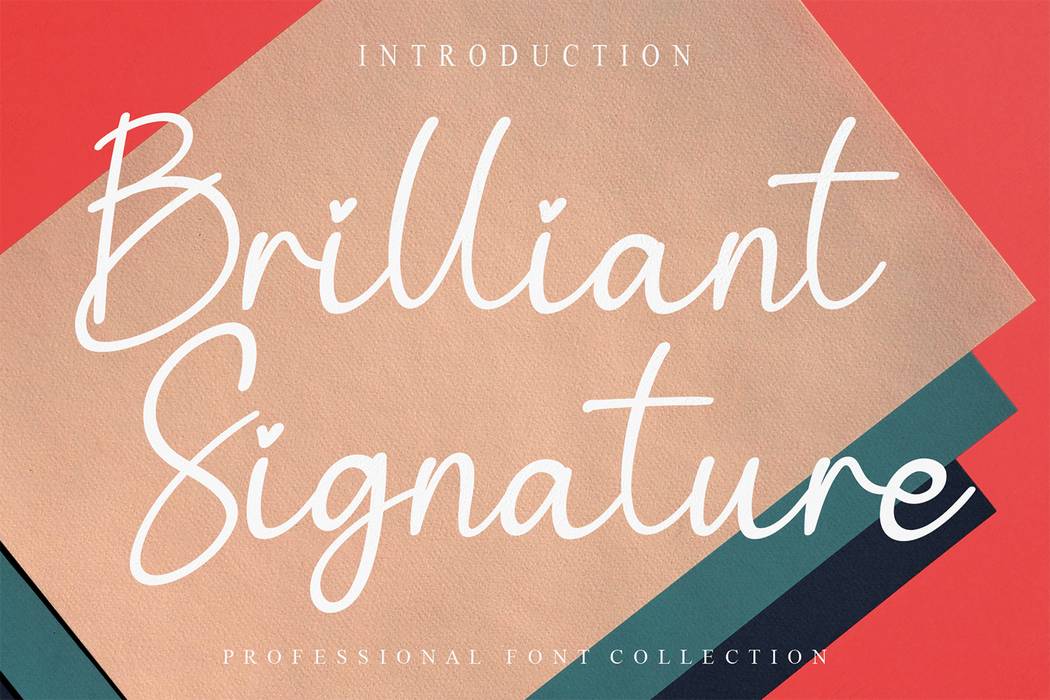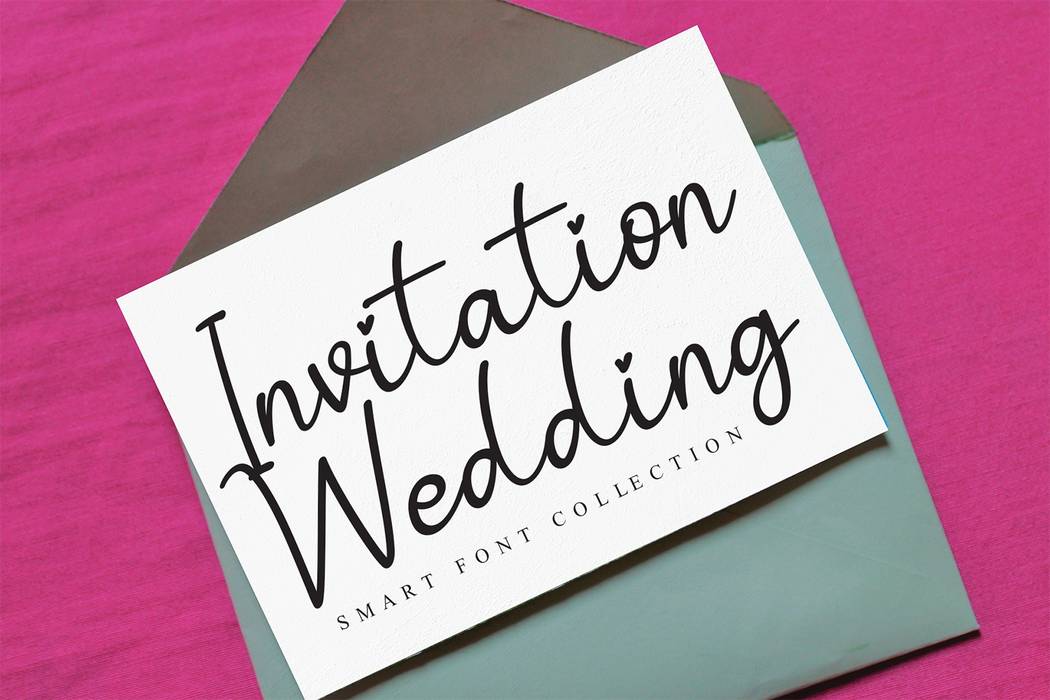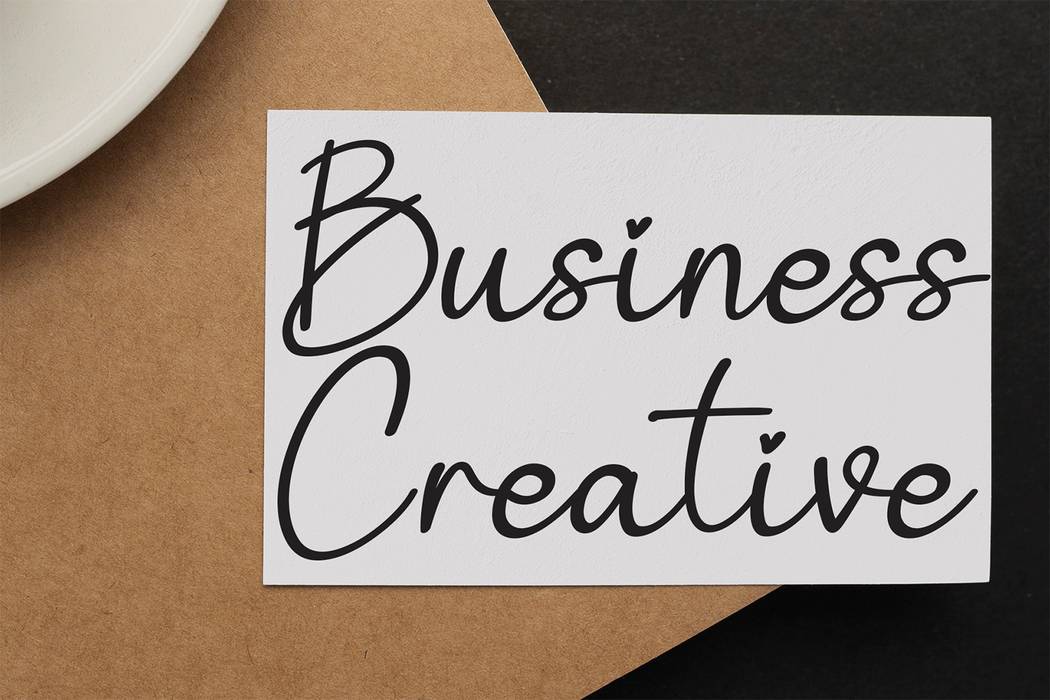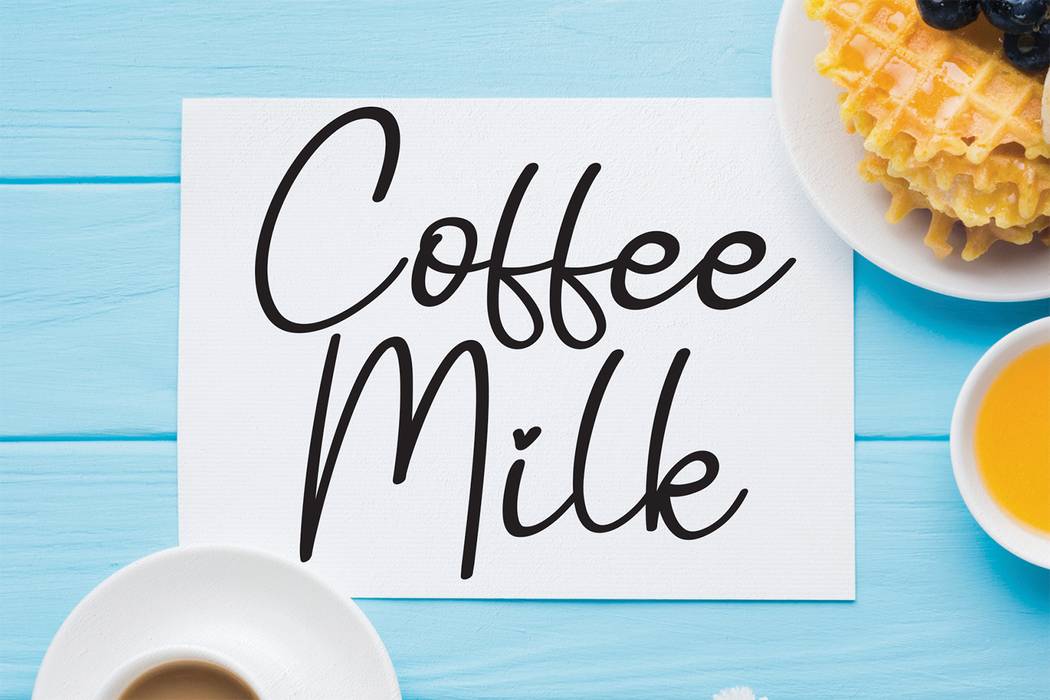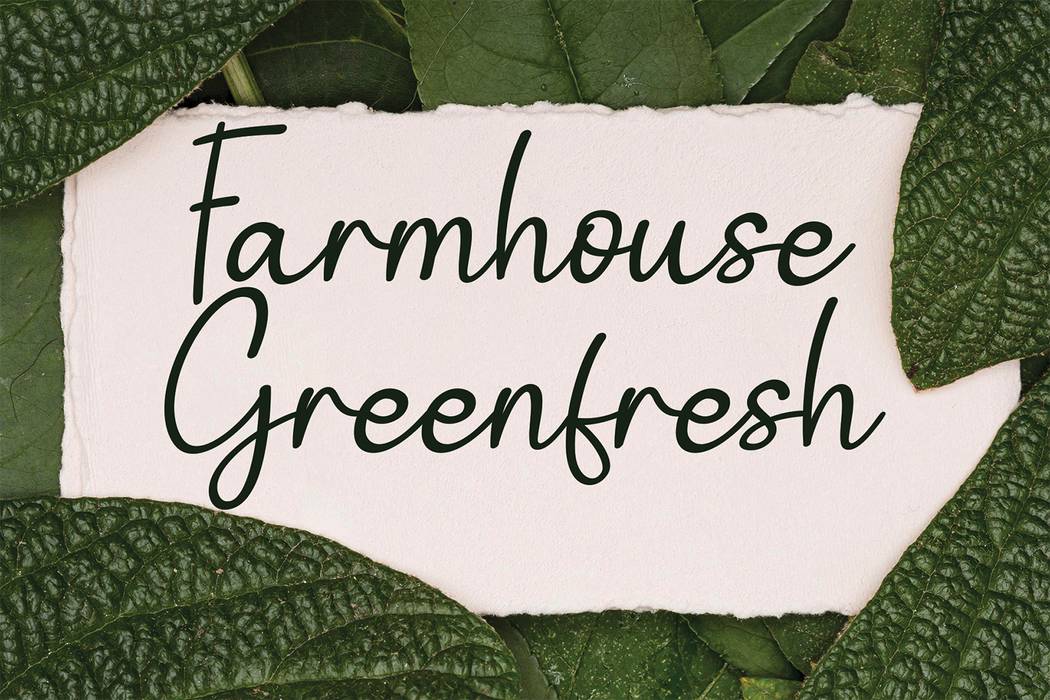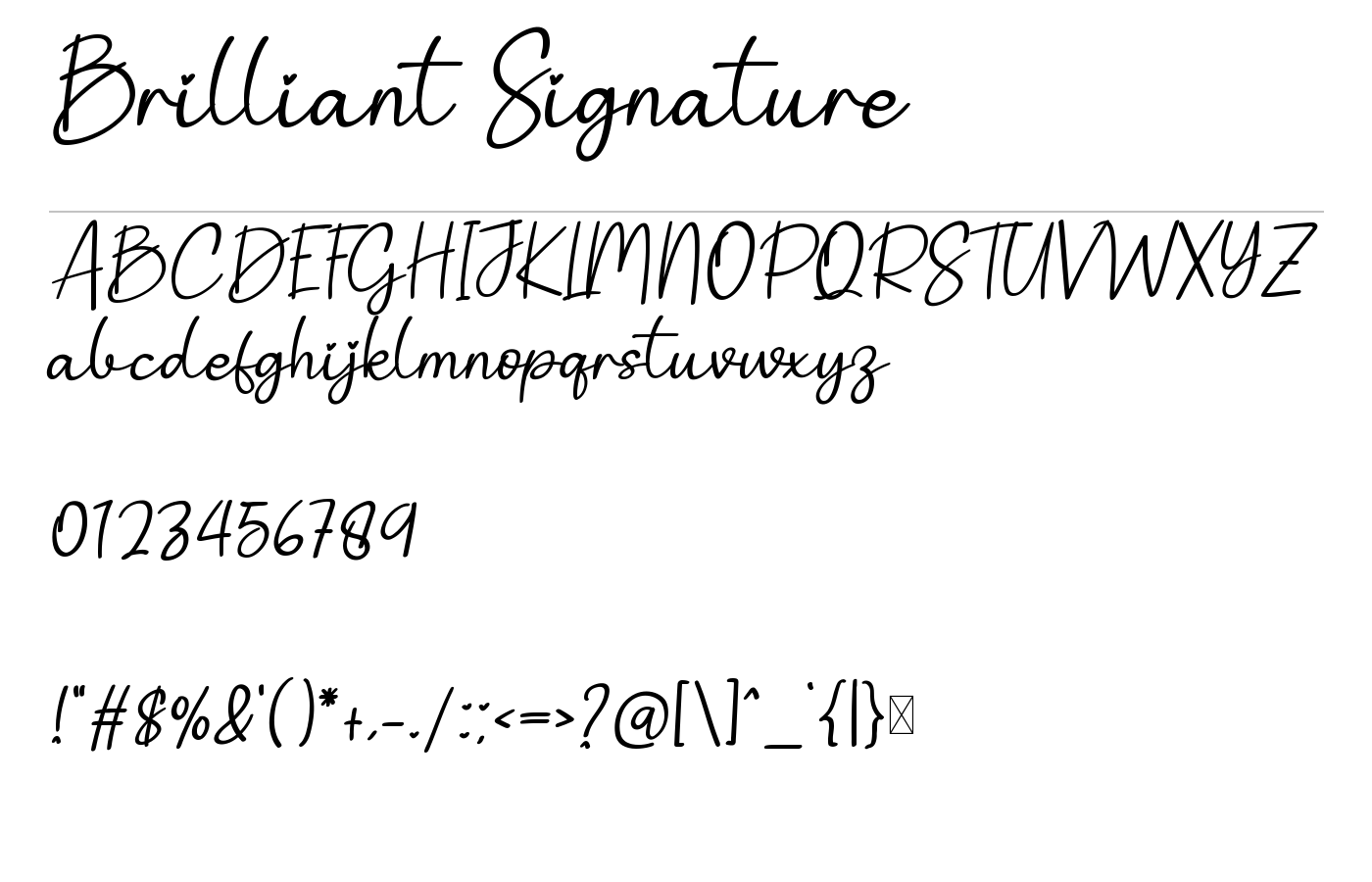
Brilliant Signature is a delicate, handwritten script font that combines elegance with a casual, personal touch, featuring slender, flowing strokes and charming details like heart-shaped dots. Its light weight, moderate contrast, and smooth curves create a stylish yet approachable feel, ideal for branding, invitations, and creative projects that seek a graceful, feminine, and intimate vibe. This font works beautifully for logos, social media, and packaging where a signature-style, authentic look is desired.
Brilliant Signature Font
About Brilliant Signature Font
| Font family | Brilliant Signature Font |